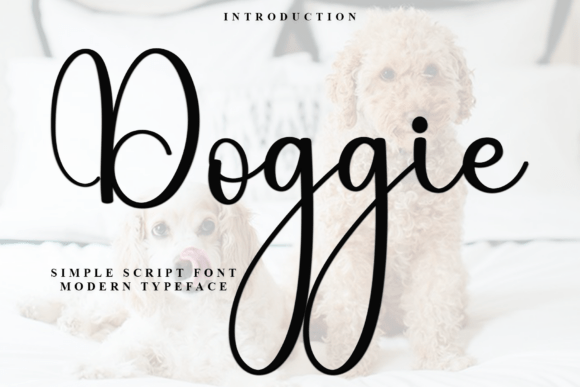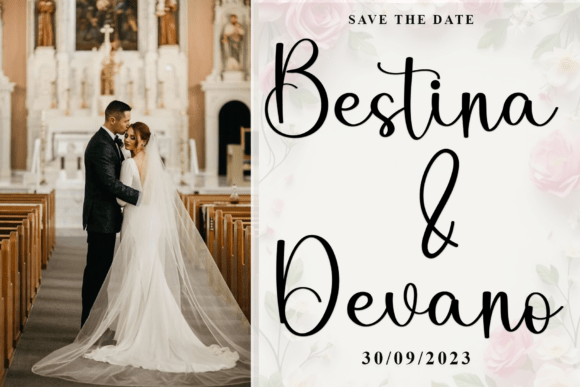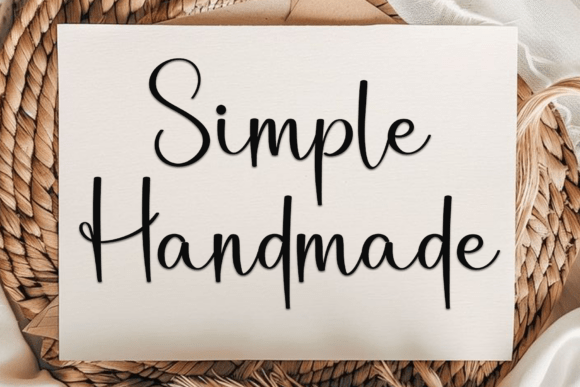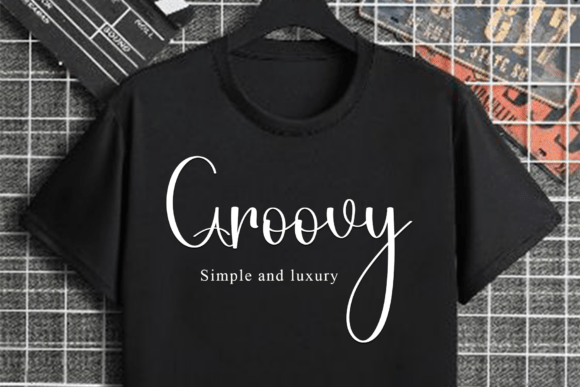
Doggie Font: A Cute Script Font for Wedding Invitations & Playful Design
About the Doggie Font
Make a bold statement with Doggie Font, a powerful and memorable font. Doggie is a casual and creative font that exudes warmth and friendliness. Its round, playful strokes create a relaxed and approachable feel, perfect for personal projects, invitations, and social media graphics. The font’s charming, hand-drawn aesthetic adds a fun and unique touch to any design.
Doggie Font’s playful nature makes it ideal for children’s books, branding for pet-related businesses, or playful social media campaigns. It works well in headlines, short taglines, and logos where its casual charm is an asset. However, its low x-height and informal style make it unsuitable for body text or lengthy paragraphs, and should be avoided in UI design where legibility is paramount.
Pairing Doggie Font with a clean sans-serif like Open Sans for body copy creates a balanced and visually appealing contrast. For a more playful feel, consider pairing it with a script font like Great Vibes, although careful consideration of kerning might be necessary. Alternatively, a geometric sans-serif such as Futura could provide a modern counterpoint.
Doggie Font’s overall personality is undeniably cheerful and approachable. Its hand-drawn aesthetic lends itself to projects needing a friendly, slightly whimsical feel.
Doggie Font Usage Examples